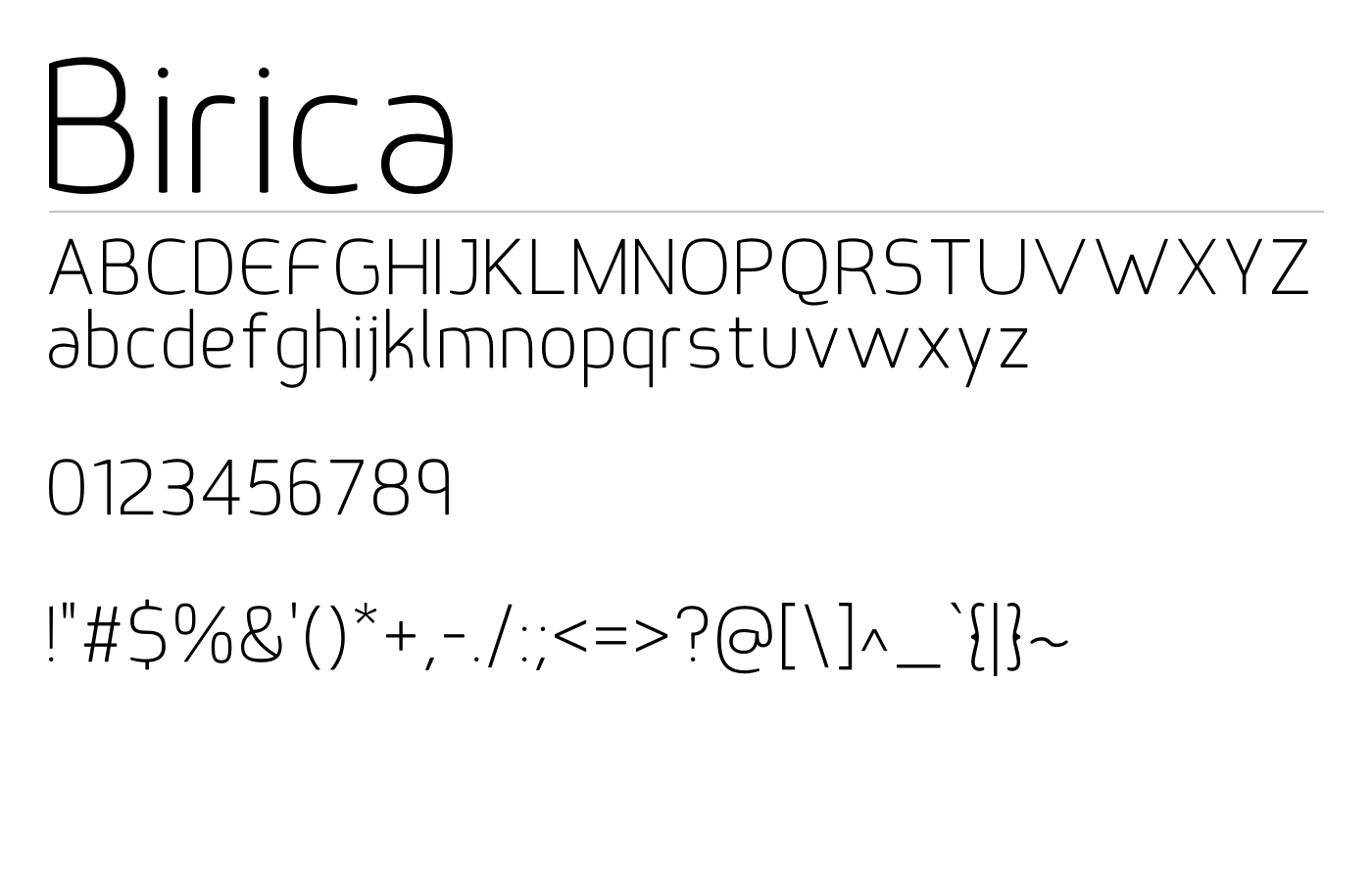
Birica is a modern sans serif font characterized by its clean, narrow letterforms and subtle geometric influence. Its light weight and open spacing create an airy and delicate feel, making it ideal for minimalist branding, editorial headlines, and tech-inspired design where clarity and sleek sophistication are key.
Birica Font
About Birica Font
| Designer | Leandro Ribeiro |